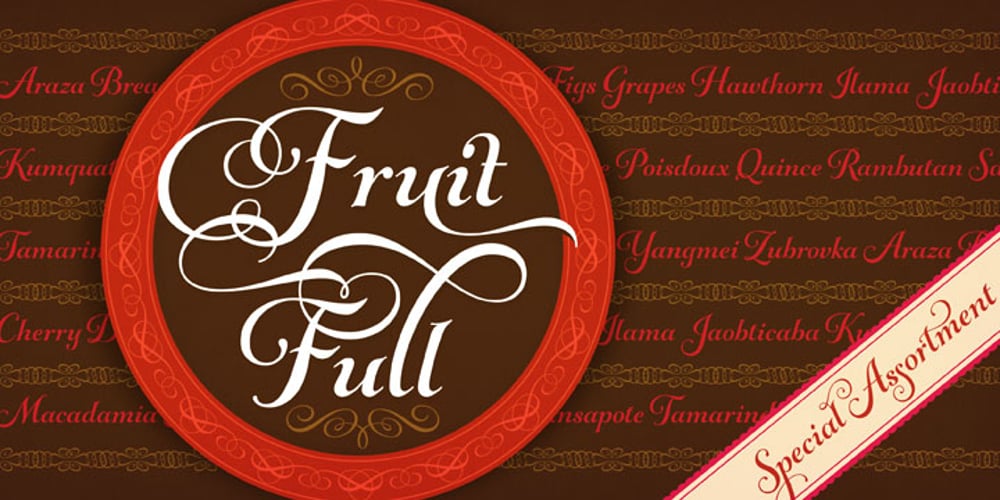
Gioviale
Gioviale font
Gioviale Font Family was designed by Laura Worthington and published by Laura Worthington Design. Gioviale contains 1 styles and family package options. Gioviale is a unique hybrid that seamlessly blends an italic and script typeface with flair and elegance, and carryies just a hint of tailored and clean, structured underpinnings. Its versatility is exemplified in its greater readability at small sizes compared to other scripts. Gioviale includes an entire set of alternate swash caps, 20 ornaments, 20 discretionary ligatures, and 300 swashes, which include a standard uppercase set for more traditional text settings, and a swash uppercase set which are even more flourished. See what’s included! http://bit.ly/2bUXDcH *NOTE* Basic versions DO NOT include swashes, alternates or ornaments These fonts have been specially coded for access of all the swashes, alternates and ornaments without the need for professional design software! Info and instructions here: http://lauraworthingtontype.com/faqs/